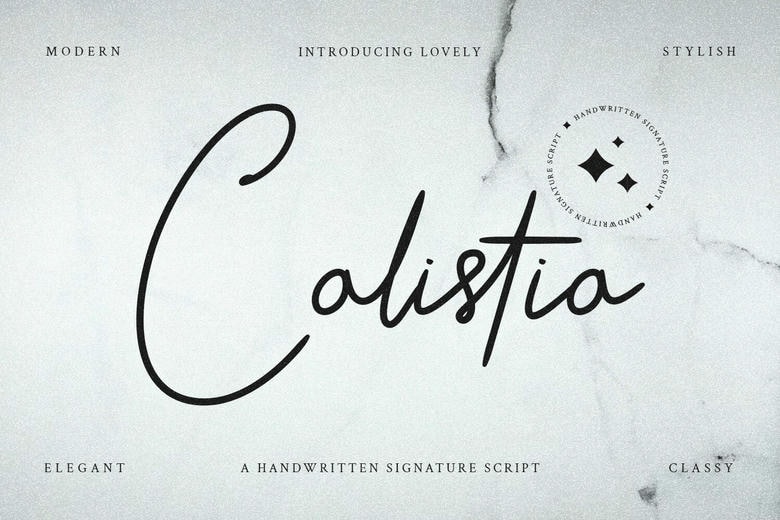
Calistia Font
Calistia is a premium script handwritten font inspired by the elegance of natural signature-style lettering. With its smooth curves, flowing strokes, and realistic hand-drawn feel, Calistia is perfect for a wide range of creative projects. Ideal for branding, logo design, wedding invitations, business cards, and luxury packaging, this font adds a touch of sophistication and charm.
Calistia Signature Font